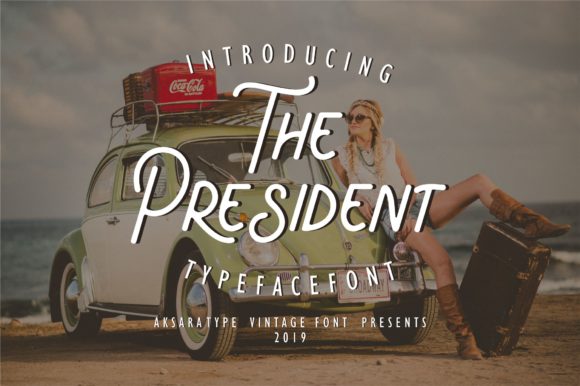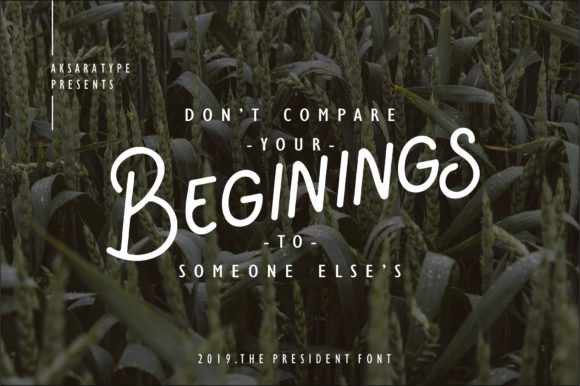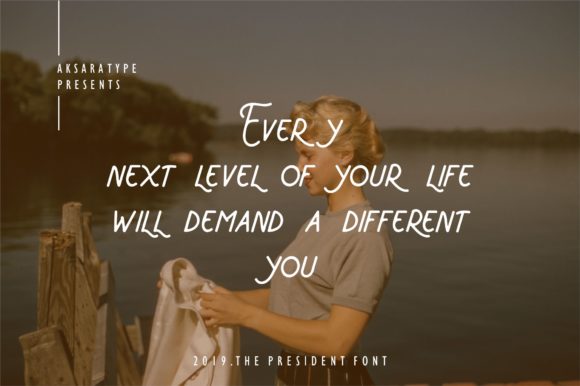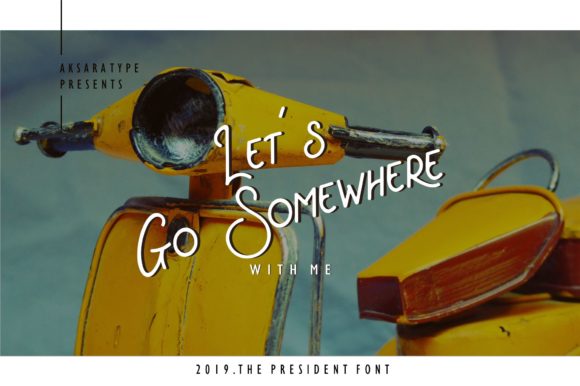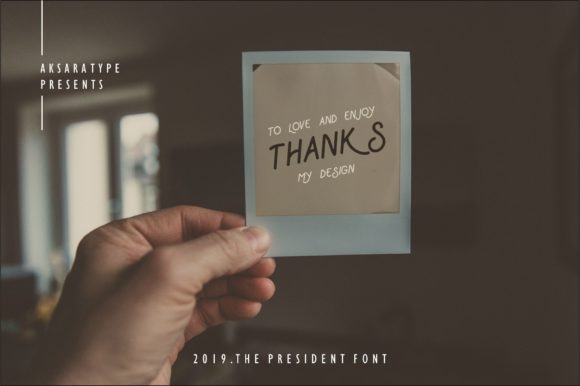
The President Font
About The President Font
The President is a vintage font with a clean and simple look. It has a great readability and is perfect for adding a vintage touch to every design.